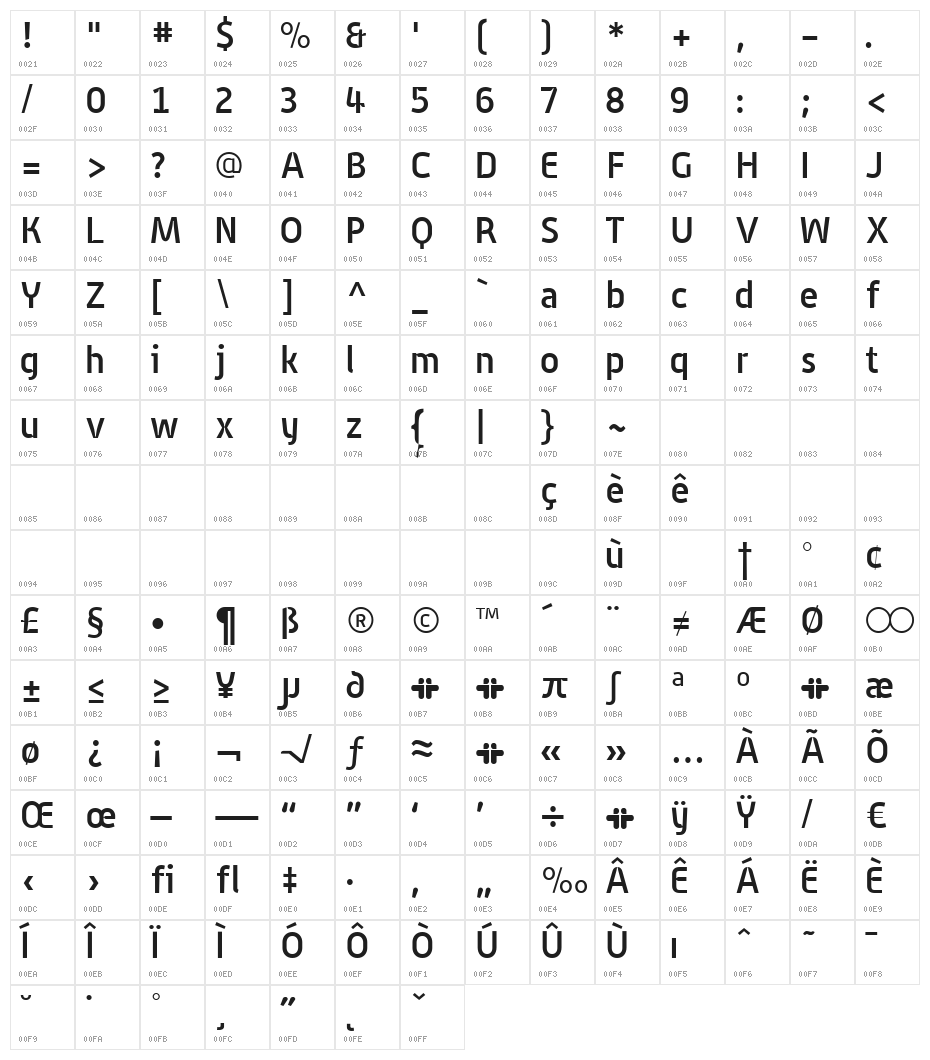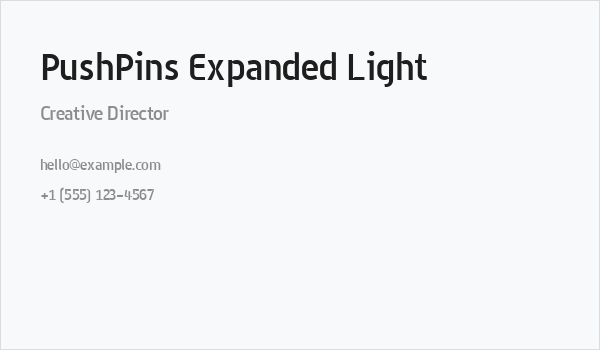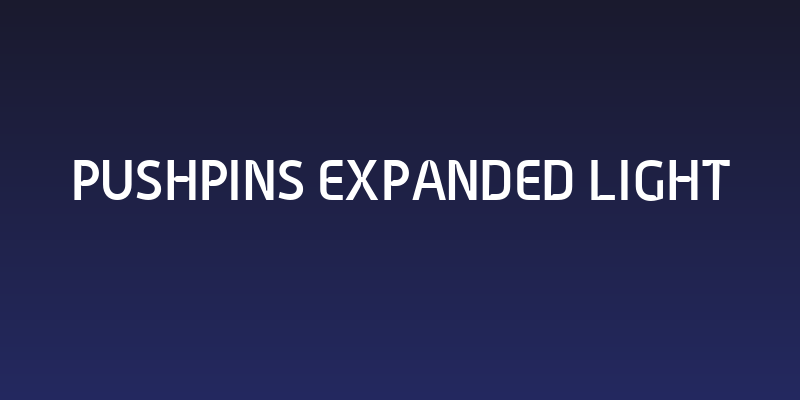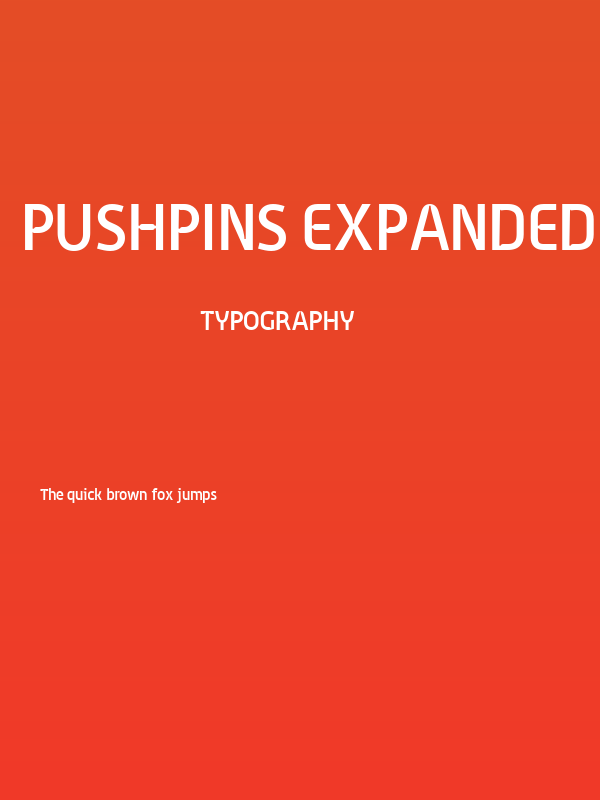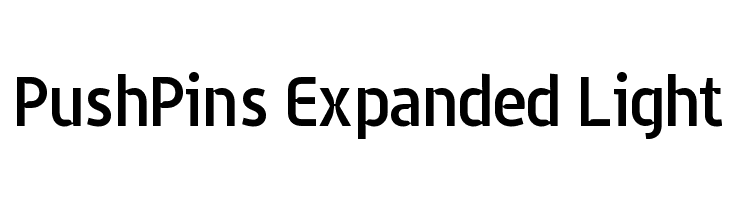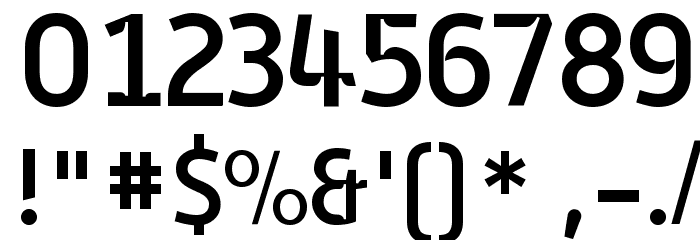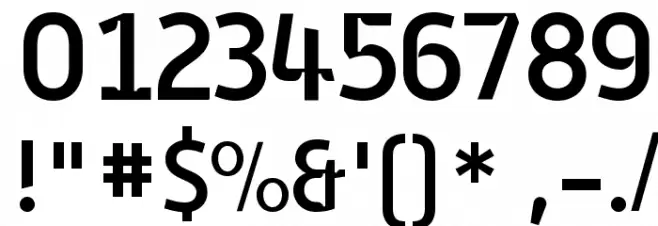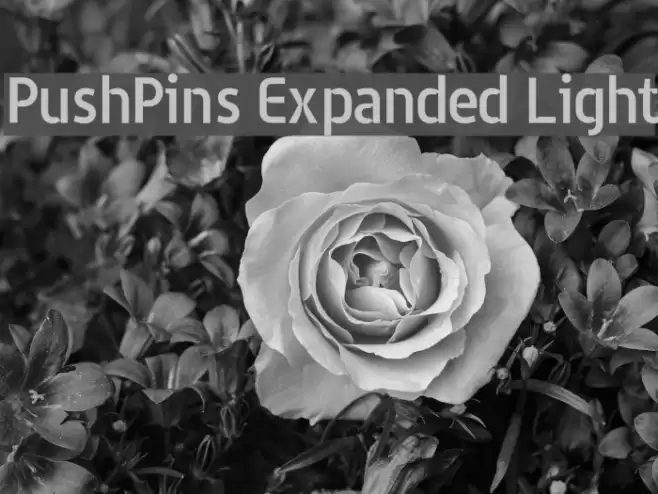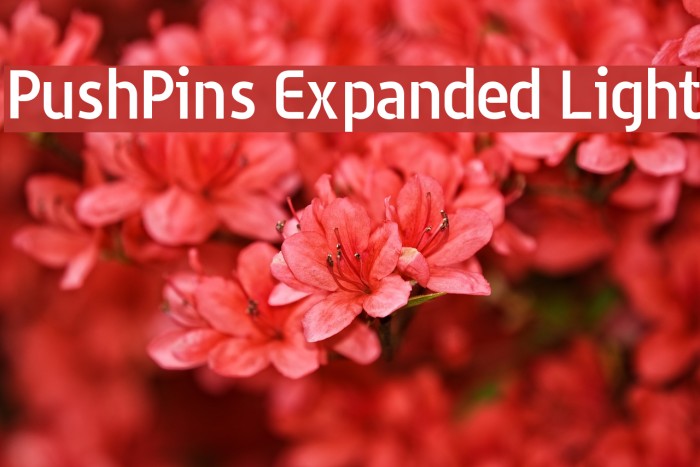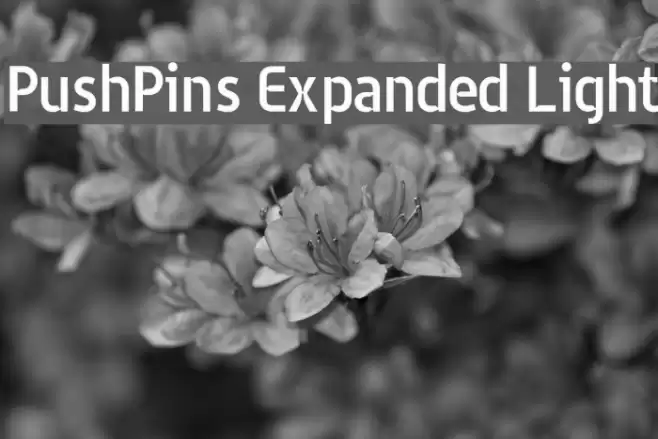
PushPins Expanded Light Font
PushPins Expanded Light Description
This font features a clean and modern sans-serif style with a slightly expanded width, giving it a unique presence. The characters are well-defined with a consistent stroke weight, contributing to its legibility. The design is straightforward yet stylish, making it suitable for a variety of applications. Its geometric shapes and open counters provide a contemporary feel, while the uniformity in letterforms ensures a cohesive look across all characters. The font's light weight adds an airy and elegant touch, making it ideal for projects that require a subtle yet impactful typeface.
| Use Case | Headlines, Body text, Logos |
| Proposed Projects | Ideal for branding, advertising, web design, and editorial projects where a modern and clean aesthetic is desired. |